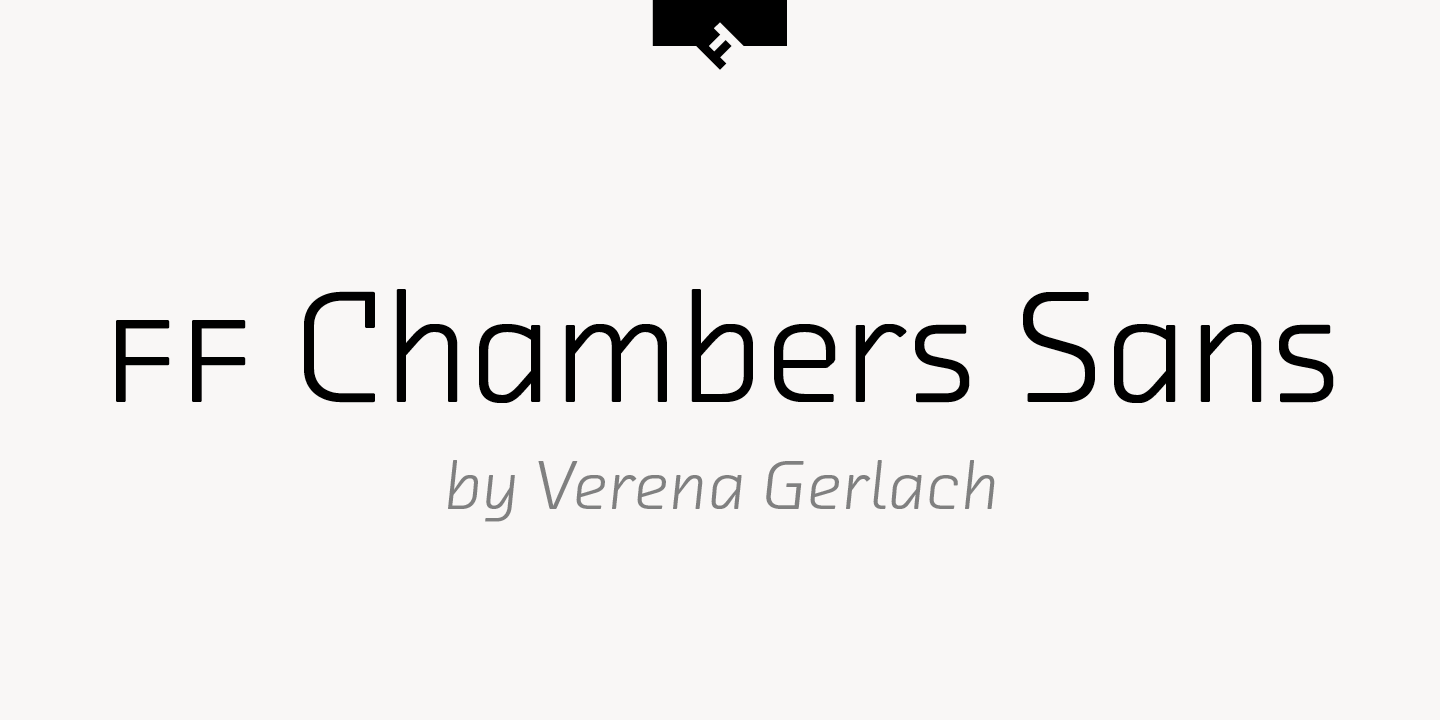
FF Chambers Sans Font is perfect for contemporary corporate branding, professional law firm presentations, modern architectural signage, sophisticated business proposals, executive conference materials, premium financial services marketing, high-end consulting firm logos, corporate annual reports, professional service advertisements, and any project requiring executive sophistication with contemporary professionalism and authoritative business elegance.
What makes FF Chambers Sans Font exciting is its executive authority and contemporary professionalism that embodies the sophisticated confidence of modern business leadership and the refined elegance of corporate excellence. The typeface features clean, authoritative letterforms with precise geometry and professional details that evoke the commanding presence of boardroom presentations and the sophisticated artistry of executive communication. Its professional character design speaks to audiences who appreciate business excellence, corporate sophistication, and the transformative power of authoritative design, making it perfect for corporate brands seeking to communicate leadership, credibility, and the distinguished professionalism of executive-level business communication that commands respect and inspires confidence.
FF Chambers Sans Font family includes light, regular, medium, and bold weights with complete character sets featuring uppercase and lowercase letters, professional numerals, executive punctuation marks, and corporate decorative elements. The typeface incorporates modern business design principles and professional typography standards that enhance its authoritative appearance while maintaining exceptional readability across all corporate applications and executive design projects.
Whether you're creating corporate brand identity, designing professional presentations, or developing executive marketing materials, FF Chambers Sans Font Free Download provides the perfect typographic foundation that communicates business leadership and corporate excellence. The font's executive appeal and professional character make it particularly effective for law firms, financial institutions, and consulting services. Its authoritative aesthetics translate seamlessly across corporate signage, business publications, and digital platforms, ensuring your brand communicates the kind of authentic professionalism and executive sophistication that resonates with business leaders and corporate clients seeking the highest levels of professional service and business excellence.